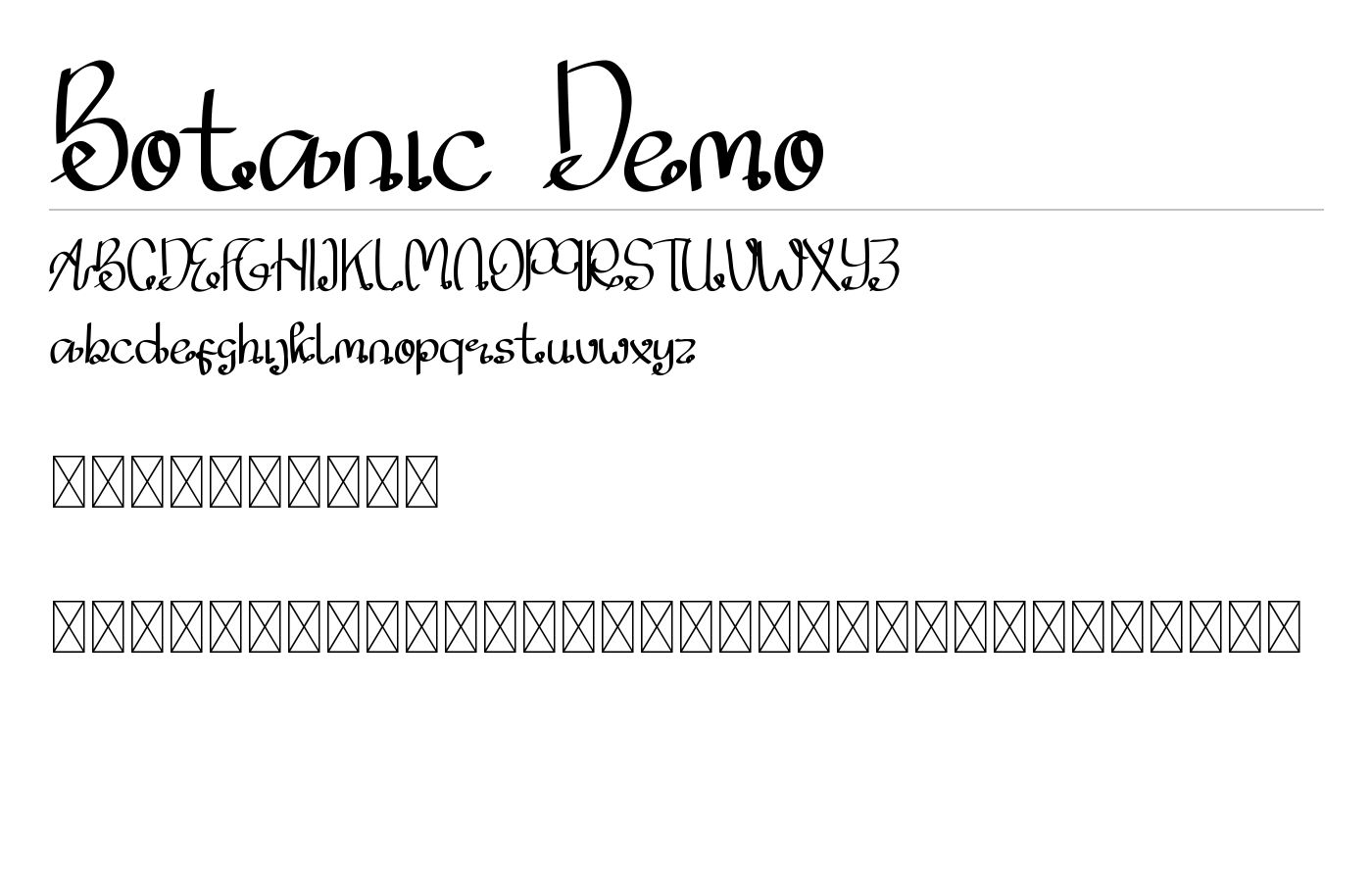
Botanic Demo is a whimsical, decorative script font with a playful and handcrafted feel. Its irregular stroke widths, flowing curves, and unique letterforms make it ideal for creative projects seeking a natural, artistic touch, such as invitations, branding for eco-friendly or artisanal products, and eye-catching headlines. This font adds a charming, organic personality that works best in settings where a warm, personal style is desired.
Botanic Demo Font
About Botanic Demo Font
| Font family | Botanic Demo Font |
| Designer | Ali Alif Rahman & Suci Anita |